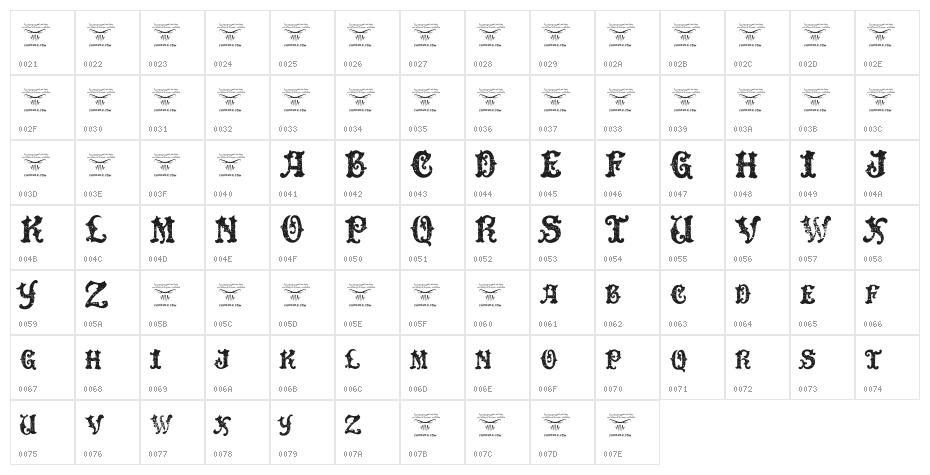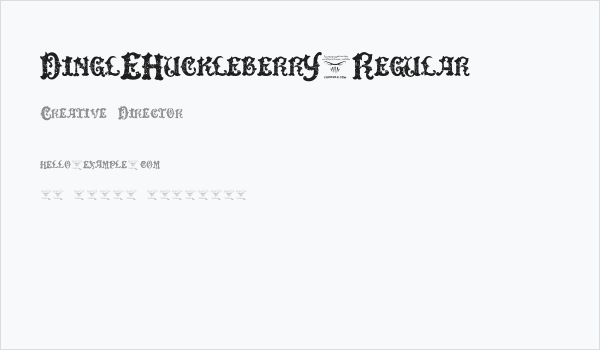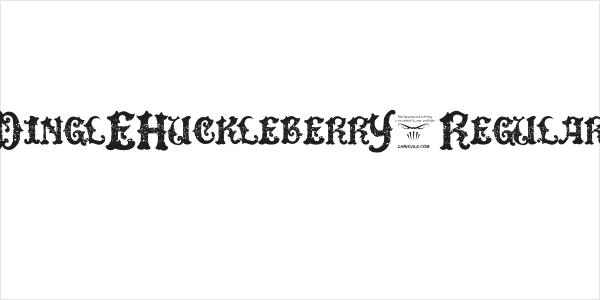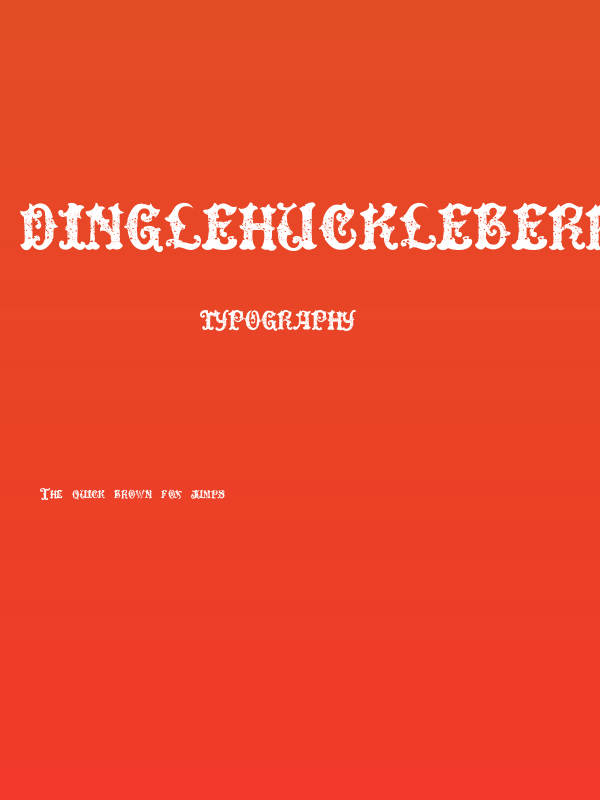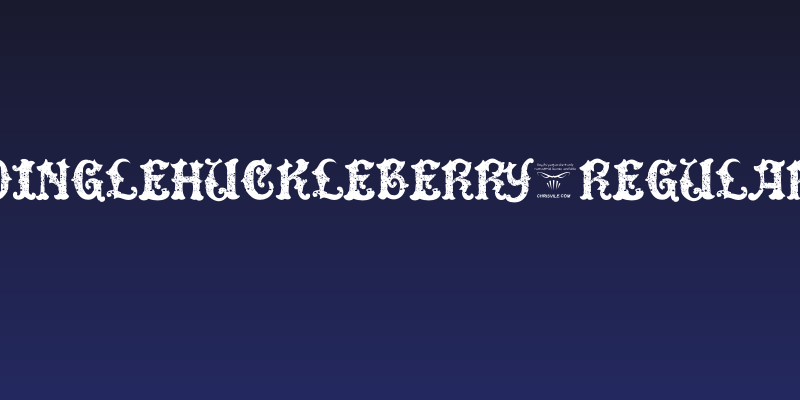
DinglEHuckleberrY-Regular Font
DinglEHuckleberrY-Regular Description
This font features a bold and decorative style with a distressed texture, giving it a vintage and rugged appearance. The characters are ornate, with intricate details and flourishes that add a sense of drama and flair. The uppercase letters are particularly elaborate, showcasing a unique blend of classic serif elements with a modern twist. The lowercase letters maintain the same decorative quality, ensuring consistency throughout the typeface. This font's distinct style makes it stand out, ideal for projects that require a strong visual impact.
| Proposed Projects | Perfect for vintage-themed posters, album covers, branding for rustic or artisanal products, and any design needing a bold, dramatic typeface. |